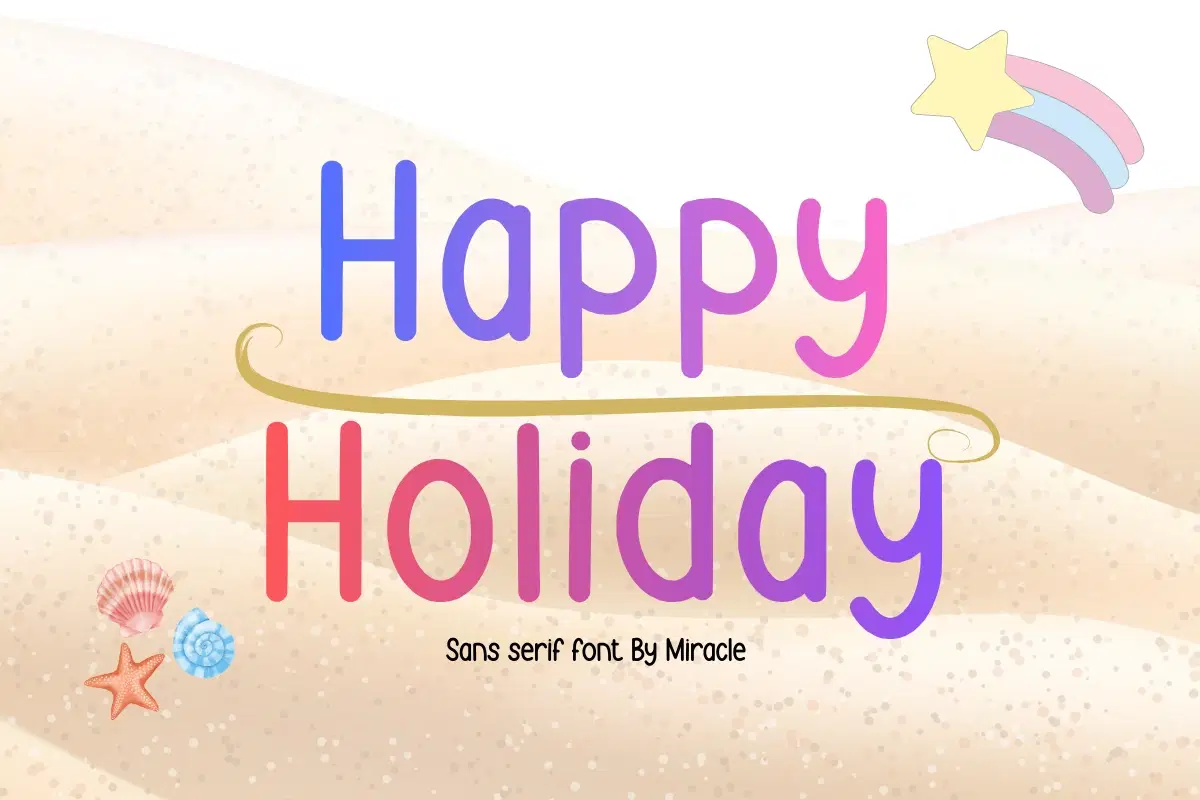
Happy Holiday - Handwritten Font
Celebrate your creative journey with Happy Holiday, a colorful and high-spirited sans serif font by Miracle. Designed to capture the essence of a perfect vacation, this font features friendly, rounded letterforms and a playful rhythm that brings an instant smile to any layout. It is the ultimate choice for projects that need to feel festive, energetic, and full of sunshine.
Happy Holiday is crafted for maximum impact and approachability, making it a versatile tool for both digital and print designs. Whether you are planning a summer campaign or a festive event, this font provides the perfect "vacation vibes" to make your text pop.